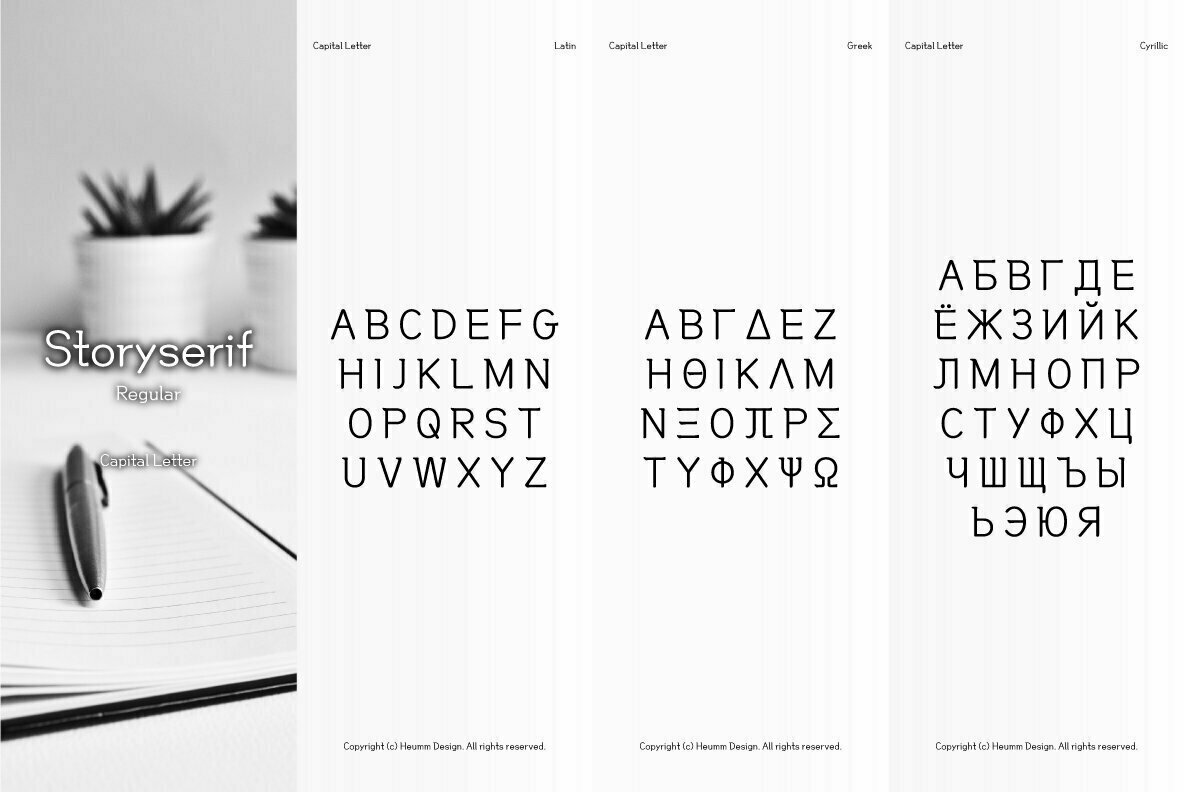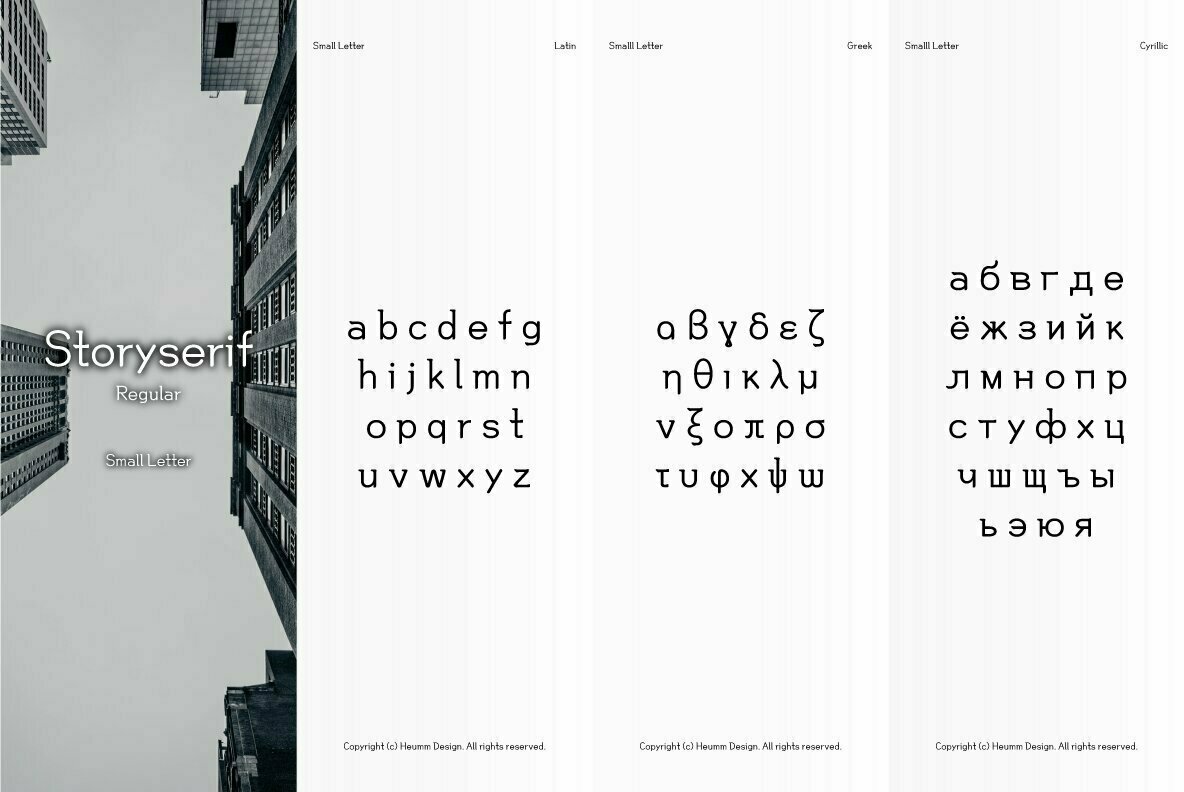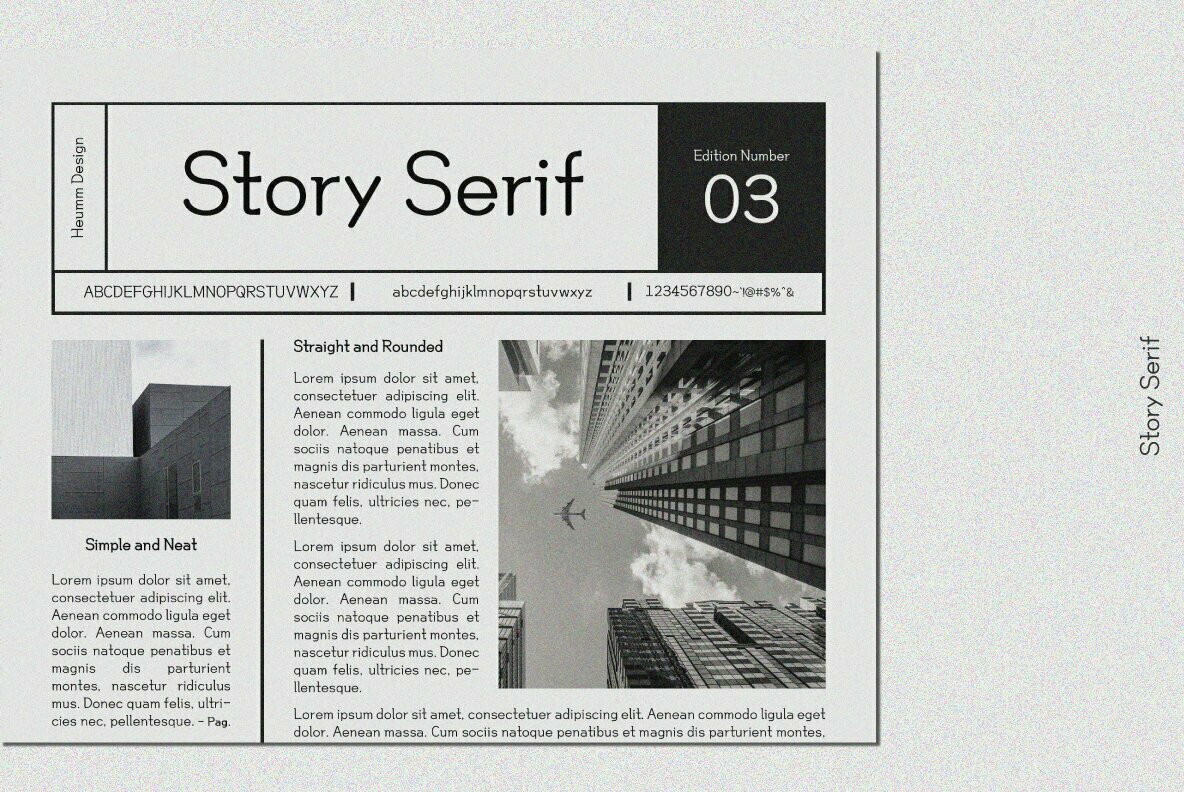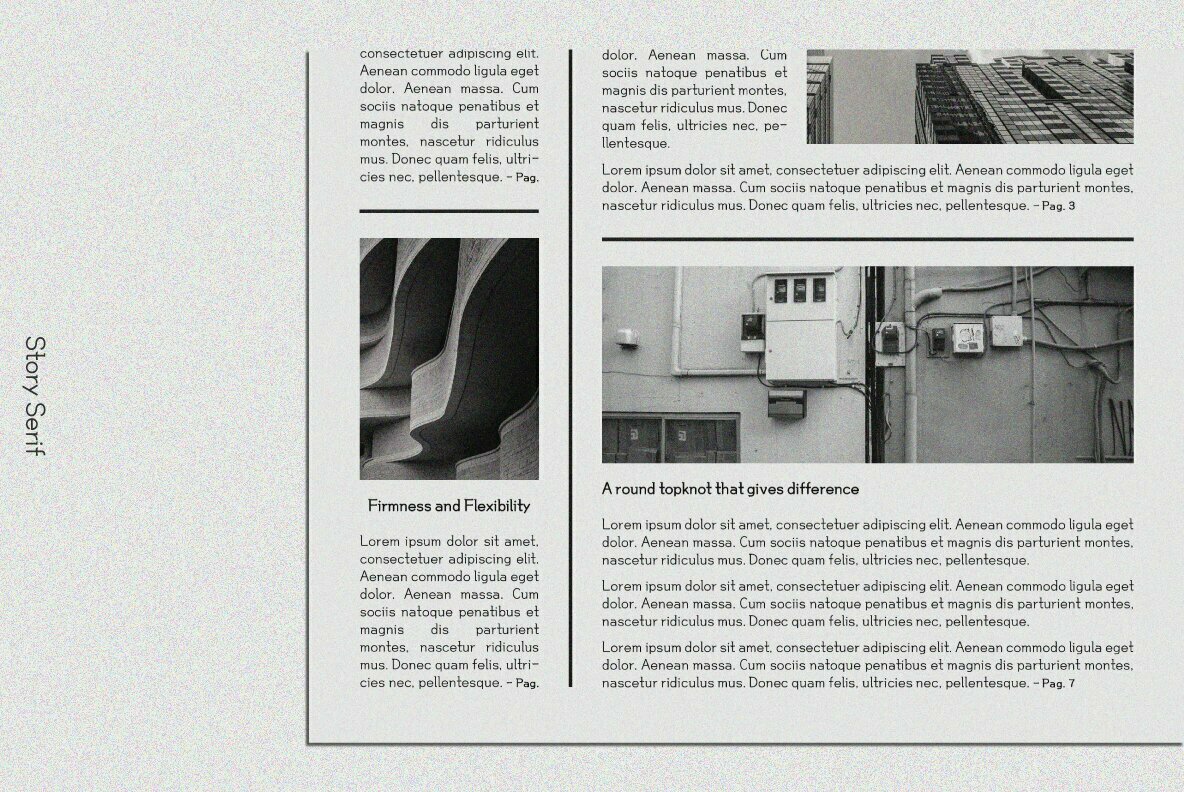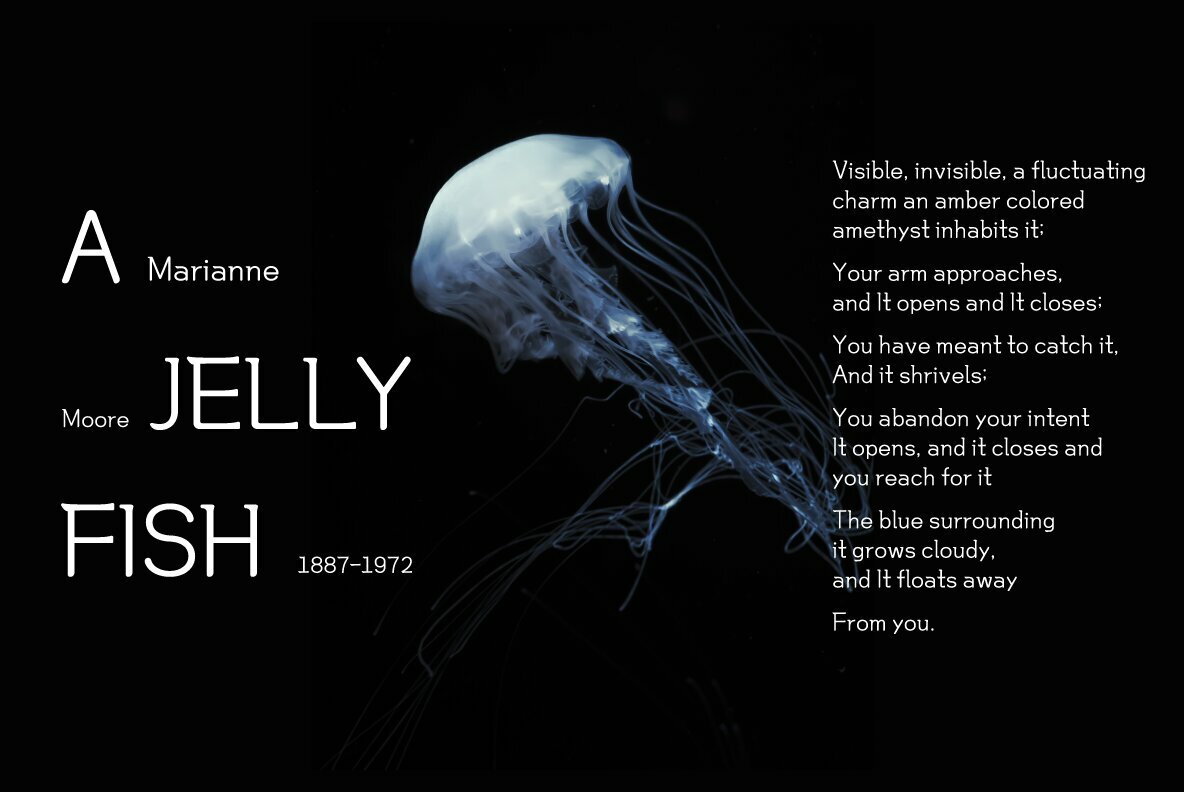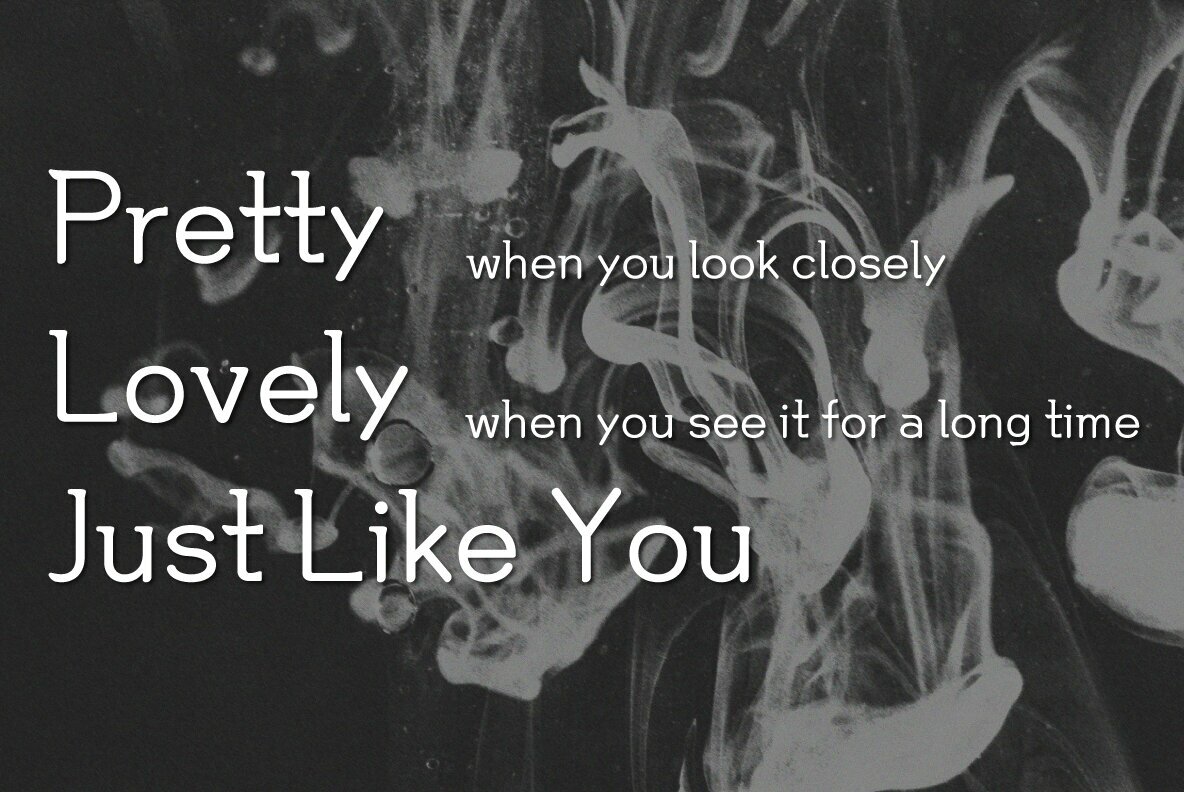
HU Storyserif Font
HU Storyserif Regular
HU Storyserif is a typeface that was designed to have an elegant and distinctive feel. The round topknot makes it different from other fonts, while the straight lines maintain their structural integrity without being too casual-looking.